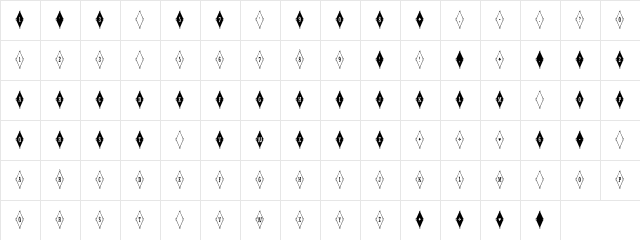
Sshow eval Free Font
Sshow eval
Style: eval
Design Context for Sshow
Sshow is a composed and adaptable typeface that performs quietly and consistently across a wide range of design contexts.